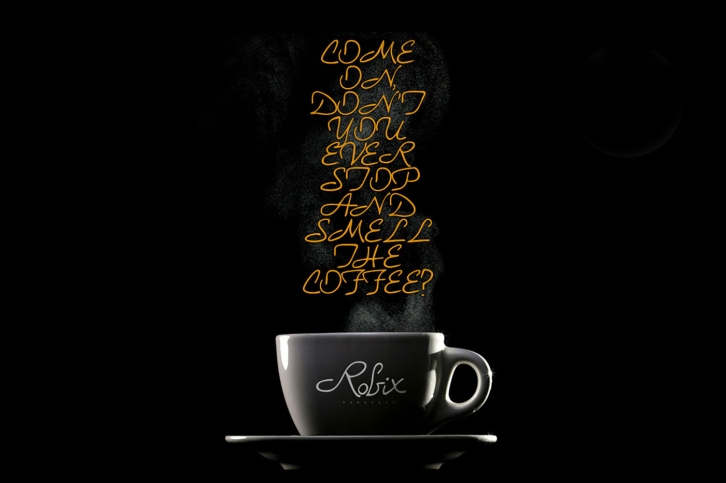
Robix is a unique handmade marker font. Perfect to take a different look on your designs. 20 “decorative borders†included to help on final design. Punctuations, lowercase and uppercase, numbers and webfont.
You receive 20 classic and unique design handmade elements.